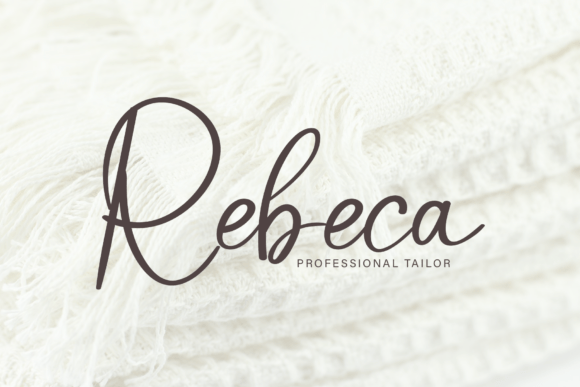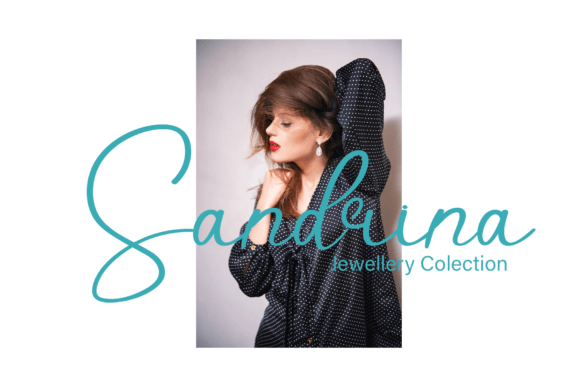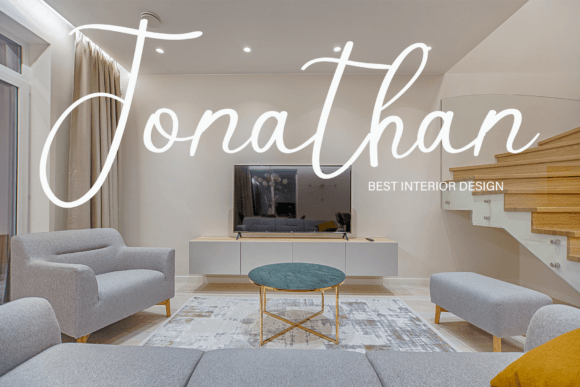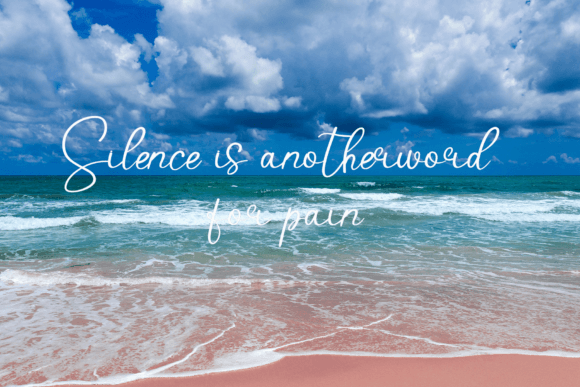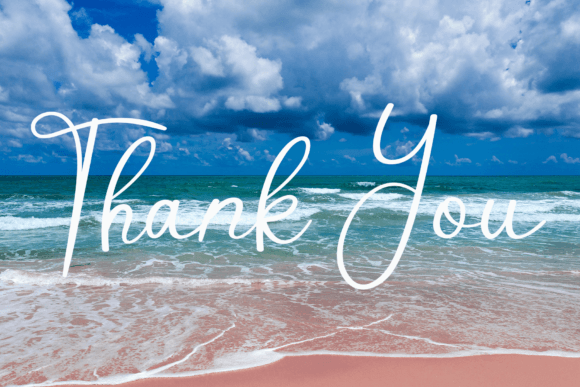
Christmas Island Font
About Christmas Island Font
**Christmas Island – A Timeless and Elegant Handwritten Font for the Holidays**
Christmas Island is a sophisticated handwritten font that exudes timeless elegance and captures the essence of the holiday season. Here’s why Christmas Island is the perfect choice for adding a touch of class to your festive designs:
1. **Timeless Elegance:** Christmas Island draws inspiration from classic calligraphy, giving it a timeless and refined appearance that transcends trends.
2. **Holiday Spirit:** This font is specially designed for the holiday season, making it ideal for creating festive and elegant holiday-themed designs.
3. **Contemporary Appeal:** While rooted in tradition, Christmas Island also maintains a contemporary atmosphere, making it suitable for modern design projects.
4. **Versatile Usage:** Use Christmas Island to add a touch of sophistication and class to a wide range of holiday-themed design projects, from greeting cards and invitations to packaging and branding.
5. **Elegant Form:** The font’s impeccable form and clean lines ensure that your text looks polished and professional, even when used in elaborate holiday designs.
6. **Holiday Greetings:** Create stunning holiday greeting cards, messages, and invitations that convey warmth and elegance to your recipients.
7. **Gift Wrapping:** Use Christmas Island to design custom gift tags, labels, and wrapping paper that elevate the presentation of your gifts.
8. **Festive Branding:** Give your business or product a holiday makeover with Christmas Island, perfect for holiday branding, advertisements, and packaging.
9. **Social Media Posts:** Make your social media posts stand out during the holiday season with beautifully crafted text and messages using Christmas Island.
10. **Website Decor:** Add a touch of elegance to your website headers, banners, and promotional graphics to showcase holiday promotions and sales.
11. **Event Invitations:** Design exquisite invitations for holiday parties, gatherings, and events that set the tone for a luxurious and festive occasion.
12. **Classy Packaging:** Elevate your product packaging with Christmas Island, creating a memorable and sophisticated impression on customers.
13. **Impeccable Craftsmanship:** Christmas Island’s flawless design and craftsmanship ensure that your text looks impeccable and stylish in every context.
14. **Personal and Business Use:** Whether for personal holiday cards or corporate branding, Christmas Island brings a sense of refinement to any project.
15. **Memorable Impressions:** Leave a lasting impression on your audience with elegant and sophisticated typography that reflects the spirit of the season.
Christmas Island is the font of choice for designers and businesses seeking to convey elegance, tradition, and the magic of the holidays in their creative projects. Its versatility, timeless appeal, and impeccable form make it a must-have font for anyone looking to infuse their designs with a touch of holiday class and sophistication.